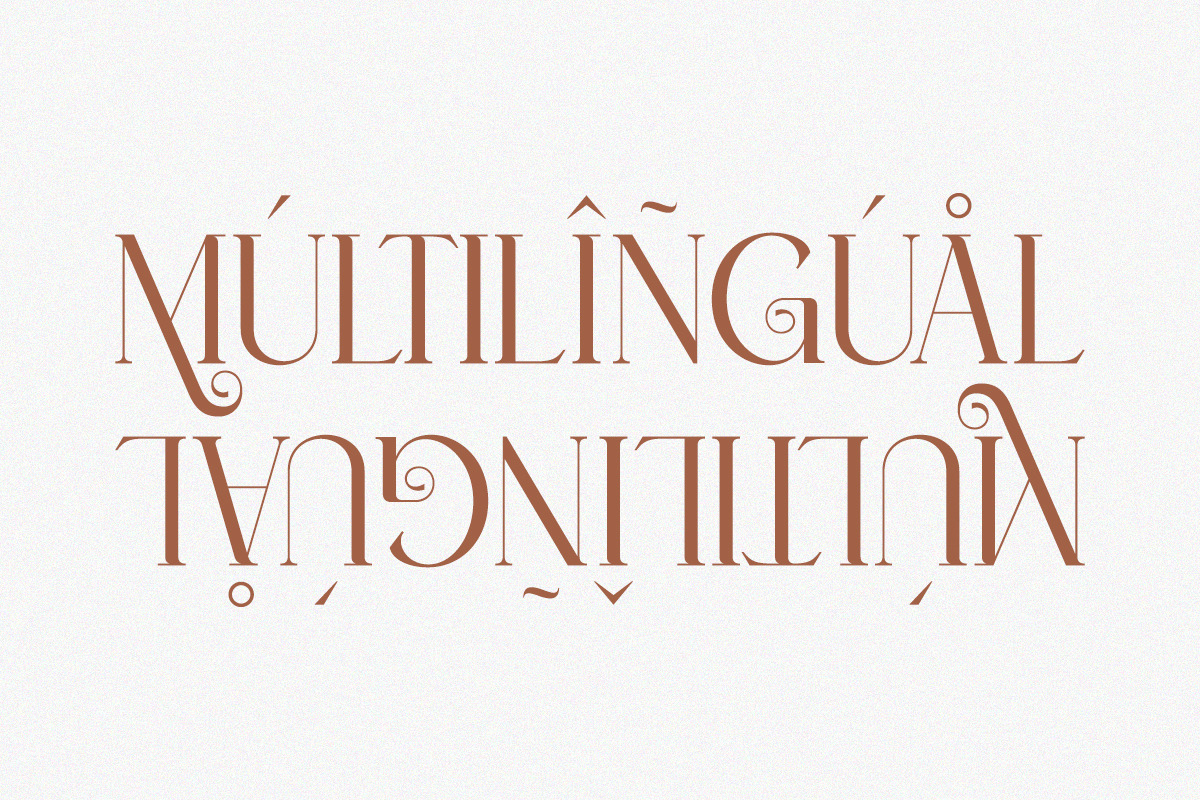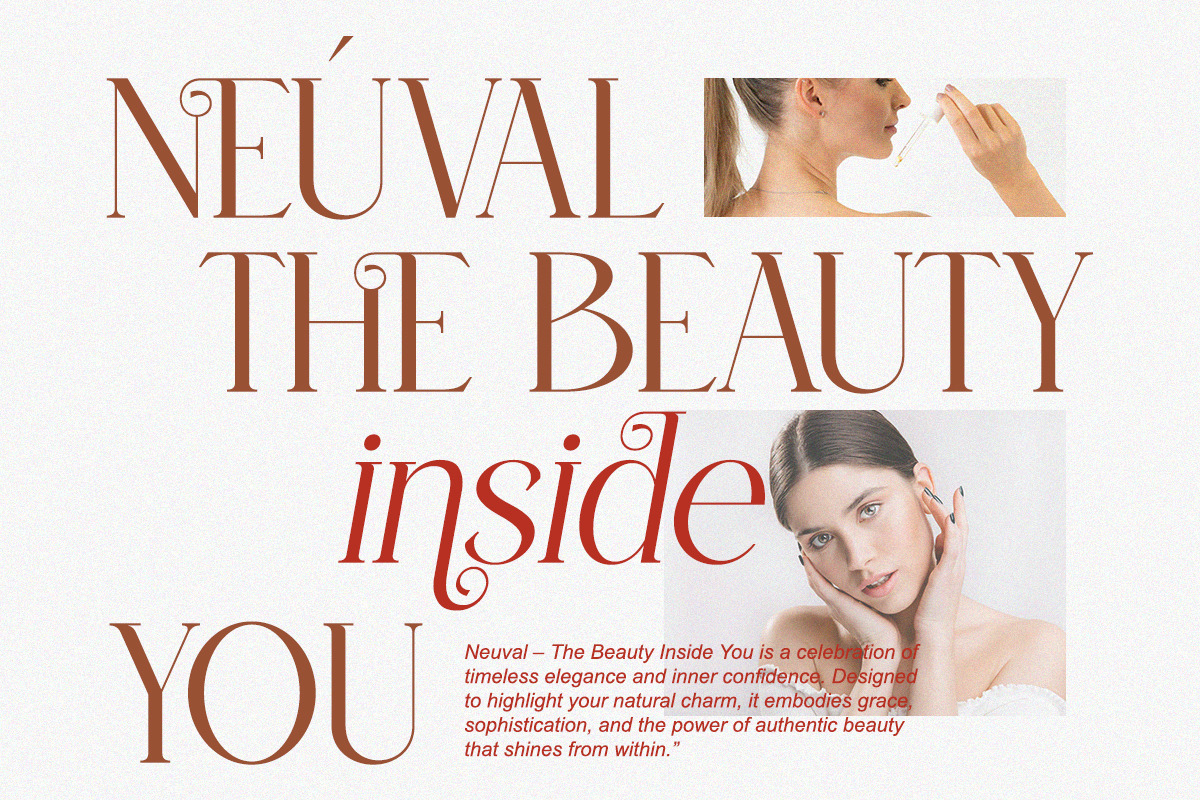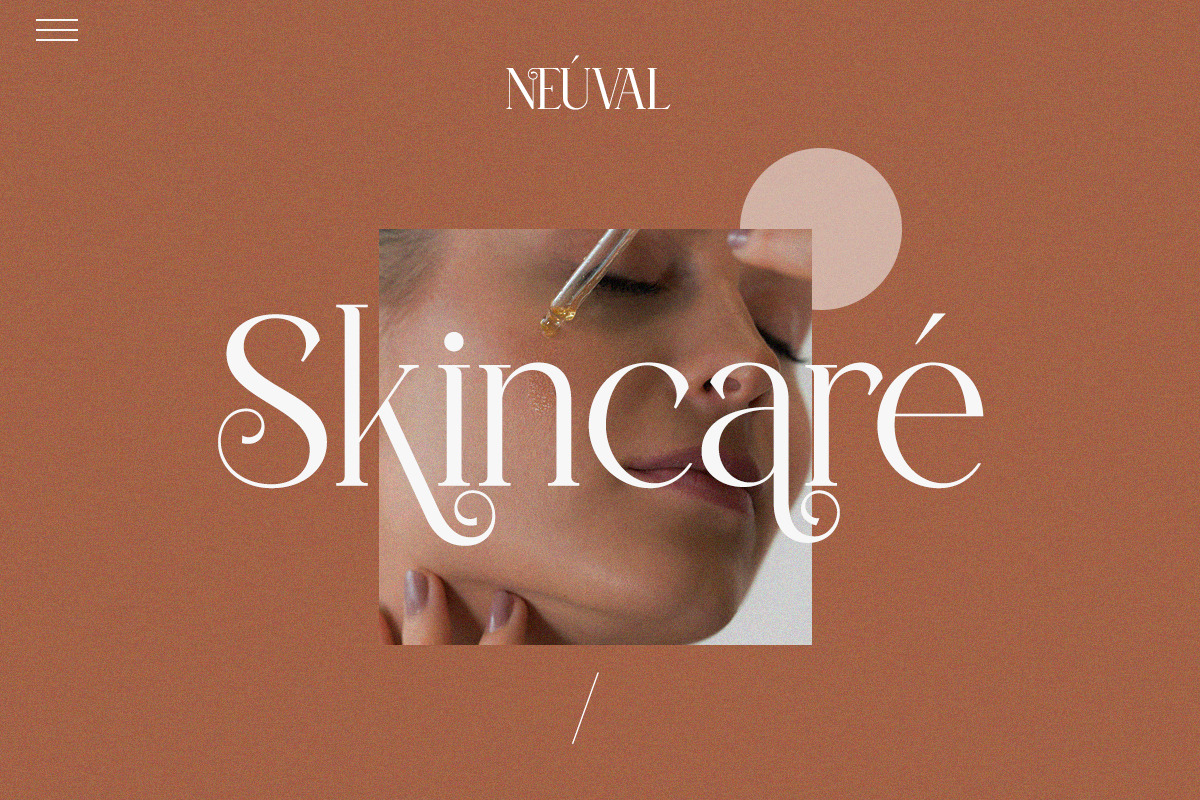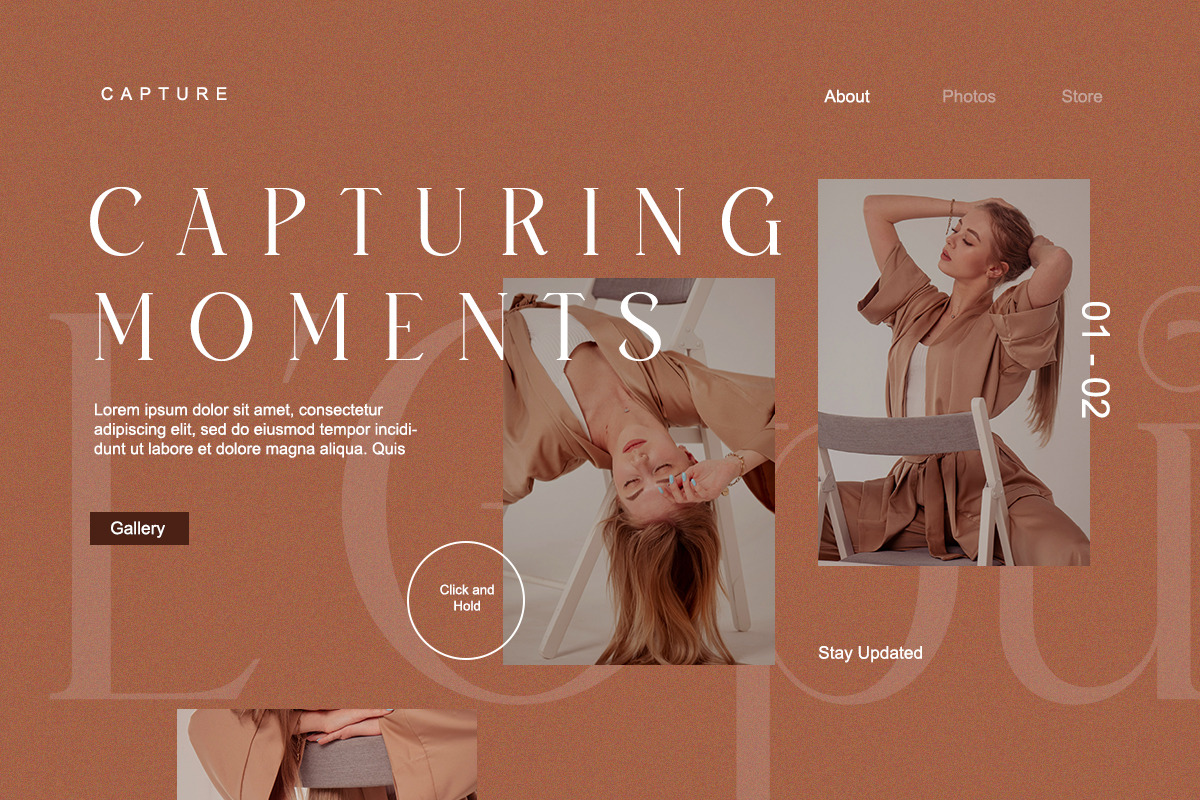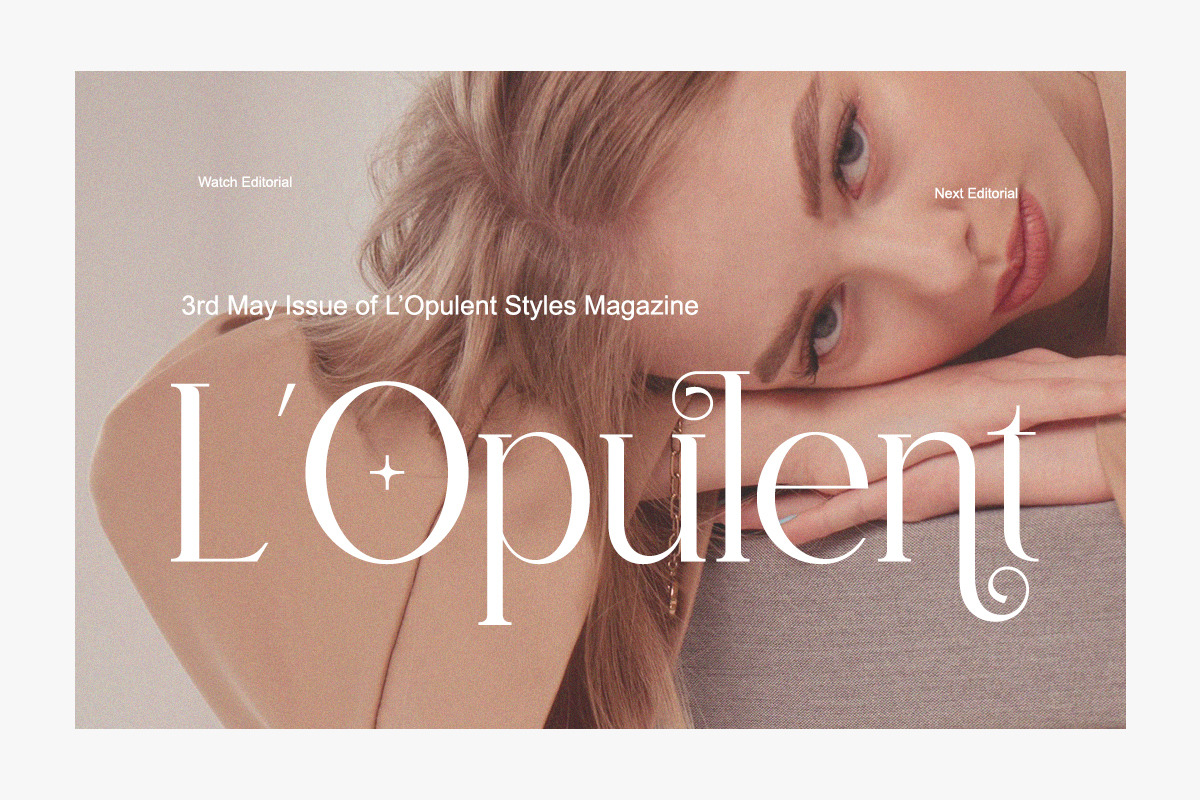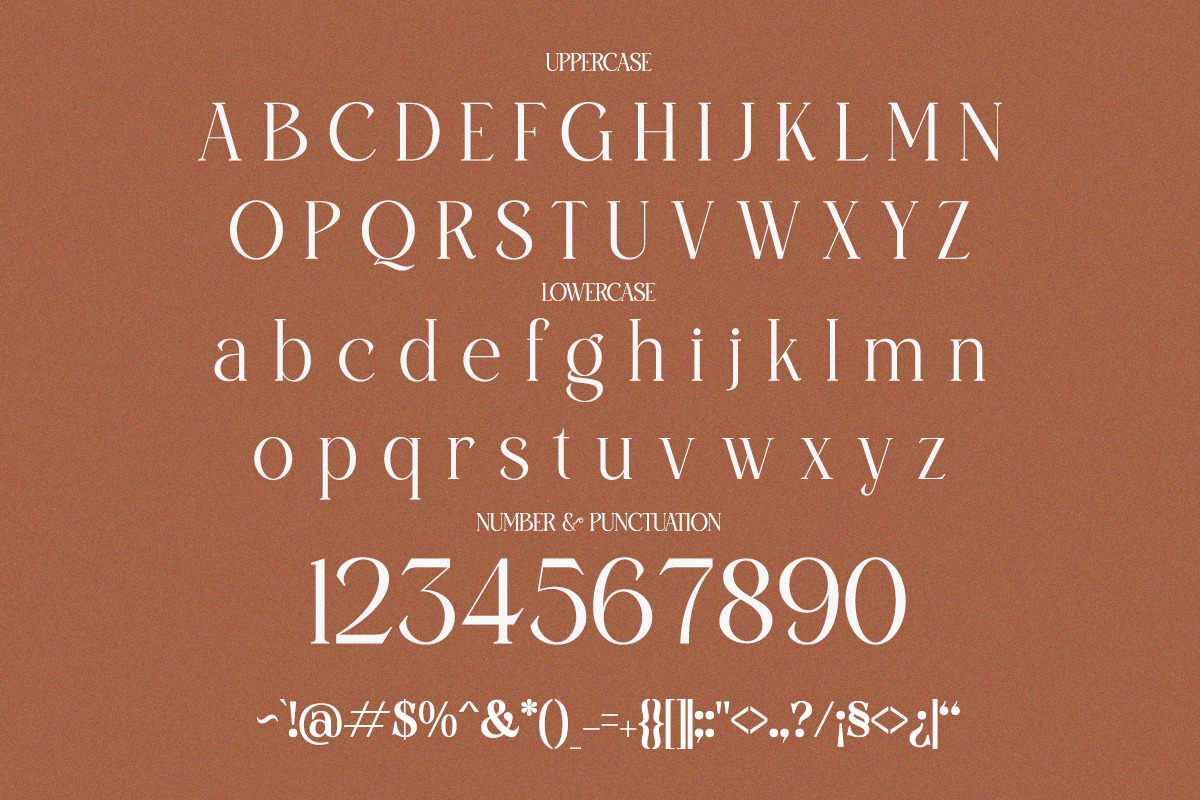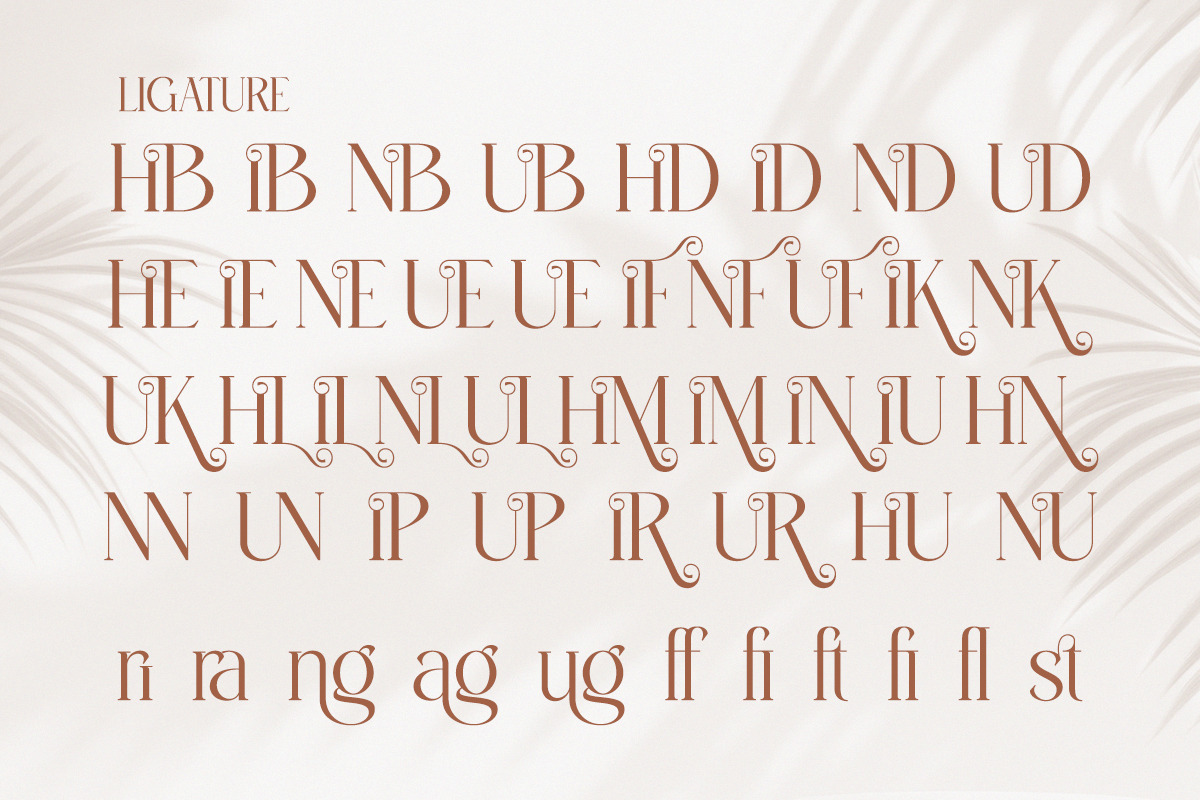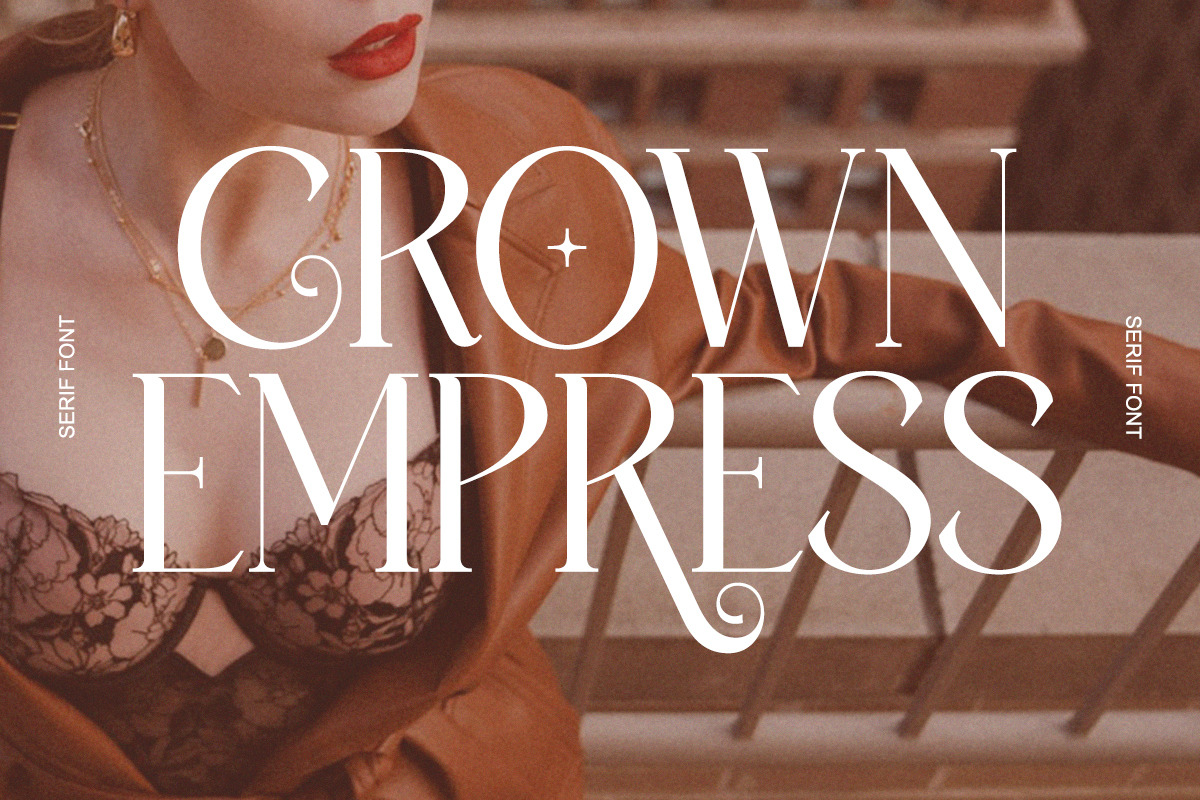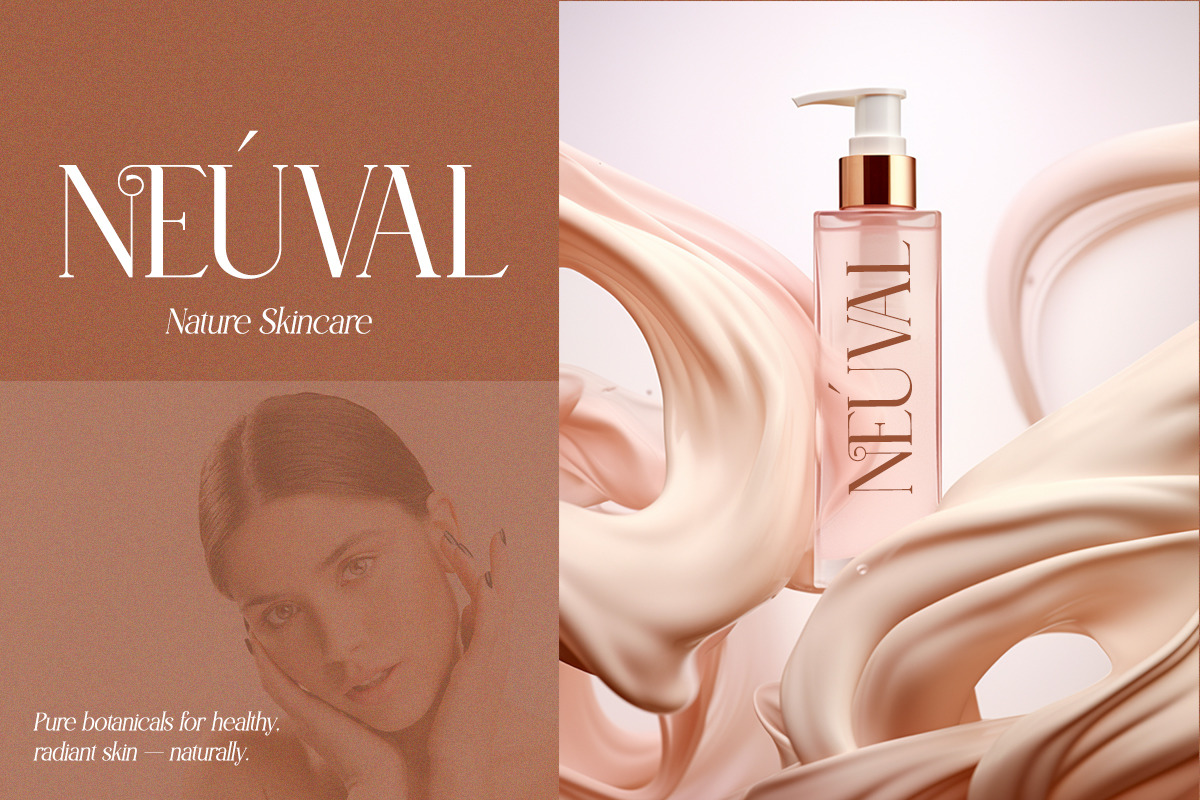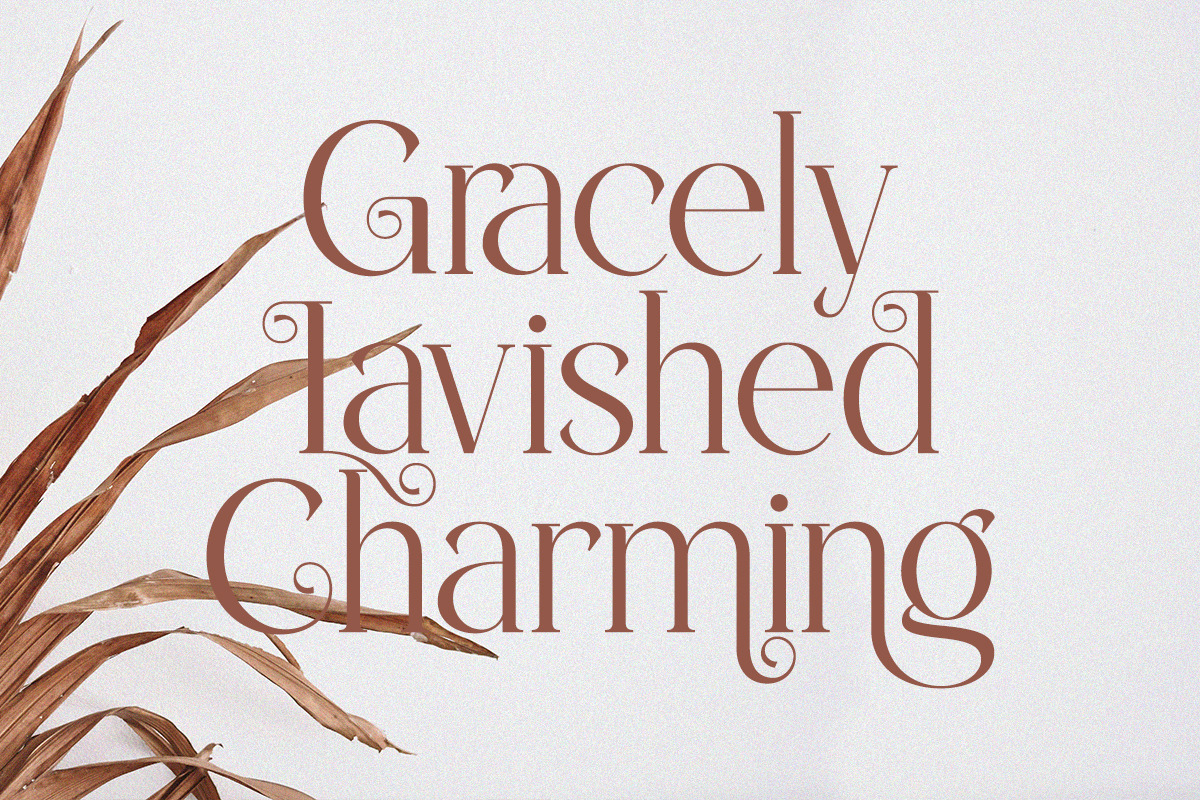
Bilifer - Modern Luxury Serif
Introducing Bilifer – Modern Luxury Serif Font, a refined and elegant typeface designed for high-end branding and timeless design projects. With its sophisticated curves, stylish alternates, and graceful ligatures, Bilifer brings a luxurious yet modern charm to every composition.
This font is crafted to elevate branding projects that demand elegance and authority. Its tall proportions and subtle decorative details make it a perfect match for editorial layouts, fashion campaigns, lifestyle products, jewelry branding, and upscale packaging. Bilifer seamlessly combines classic serif traditions with a contemporary luxurious aesthetic, ensuring it looks equally stunning in logos, magazine headlines, invitations, or web designs.
With alternate characters, stylish ligatures, and multilingual support, Bilifer gives designers unlimited creative freedom. Its versatility allows you to create high-impact headlines while maintaining readability and a premium visual tone.
If your project requires a modern yet timeless serif with luxury flair, Bilifer is the typeface that captures attention and resonates with sophistication.
✨ Font Features
- Regular & Italic
- Alternates & stylistic sets
- Elegant ligatures
🎯 Perfect For
- Luxury branding & logos
- Fashion & beauty projects
- Editorial & magazine titles
- Product packaging
- Invitations & stationery
- Elegant website design
- High-end advertising